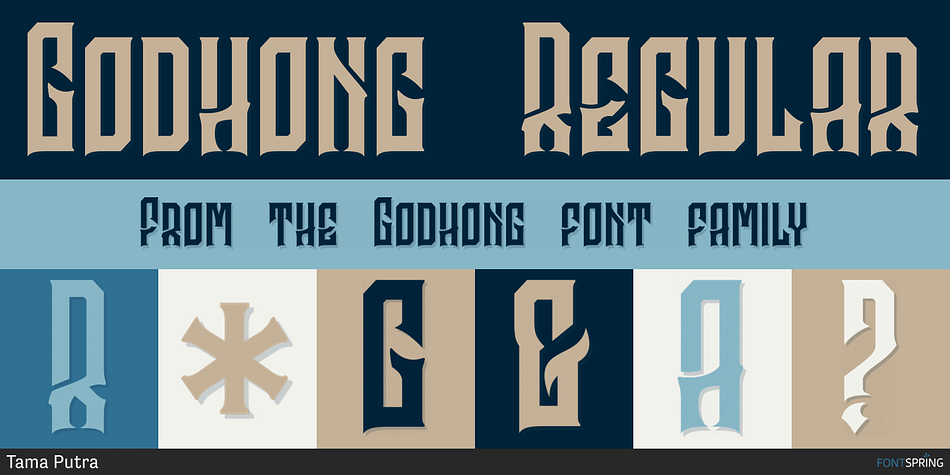
Godhong Regular
Godhong is a display and blackletter font published by Tamavocks.
Godhong is a decorative typeface inspired from gothic and rebel style.
The Godhong typeface includes a full set of uppercase and lowercase letters as well as multi-lingual and currency support, numerals, punctuations, alternates, ligatures and some extra glyphs.
- Character Set A-Z (Uppercase & Lowercase)
- Numerals & Punctuations
- Accents (Multilingual characters)
- Stylistic Alternates
- Titling
- ss01, ss02, ss03, ss04, ss05, ss06, ss07, ss08, ss09, ss10
- PUA Encoded
Godhong typeface is suitable font for creating beautiful things and many creative work.
Styles Blackletter, Display